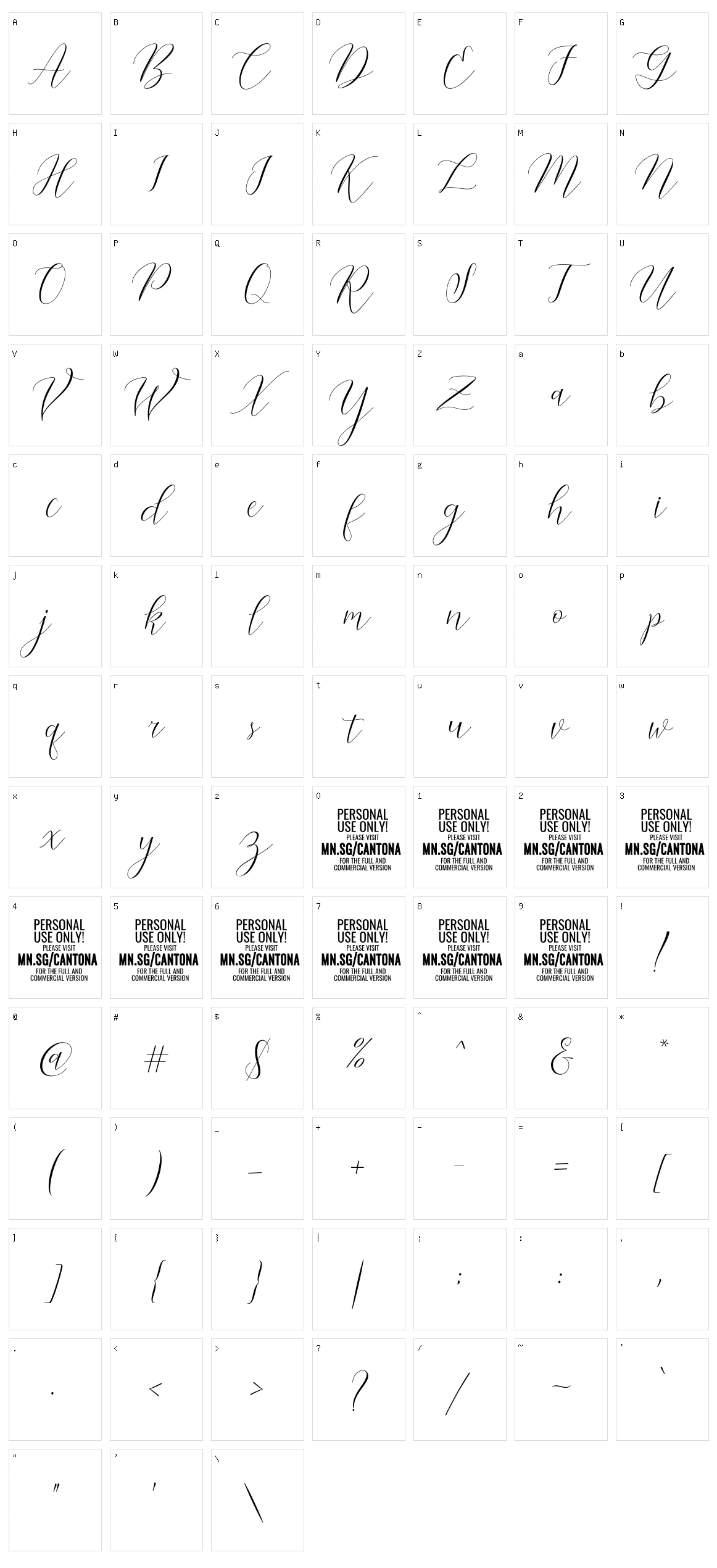
Cantona Script is a beautiful, swirly script typeface.
With its hundreds of decorative alternates, this font is perfect for a swashy logo or headline.
It contains ligatures, and has support for all Latin based European languages.